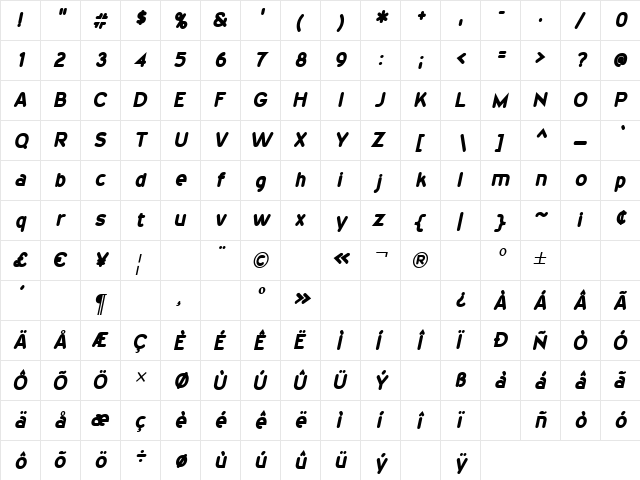
20th Century Font Bold Italic
Design Context for 20th Century Font Typeface
20th Century Font takes a measured approach to typography — its balanced proportions and neutral character make it a reliable workhorse for both digital and print work. The dynamic lean of this cut emphasises speed and emphasis in any layout. Its bold stroke weight gives it real presence on the page.
Pro Tip: Use 20th Century Font for emphasis, pull quotes, and subheadings where its slanted energy can add rhythm to the layout.